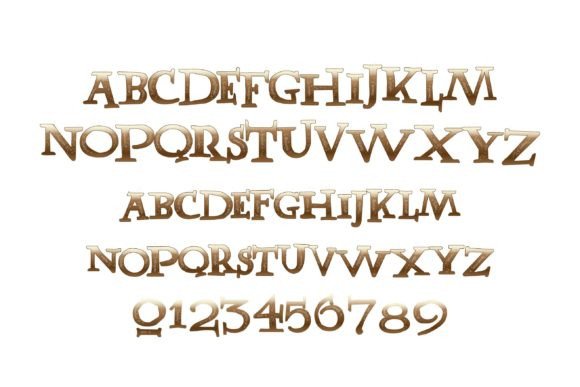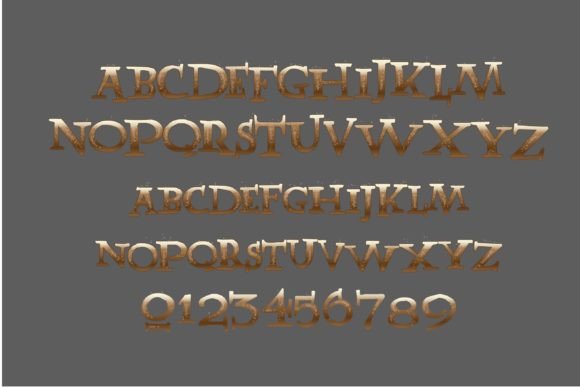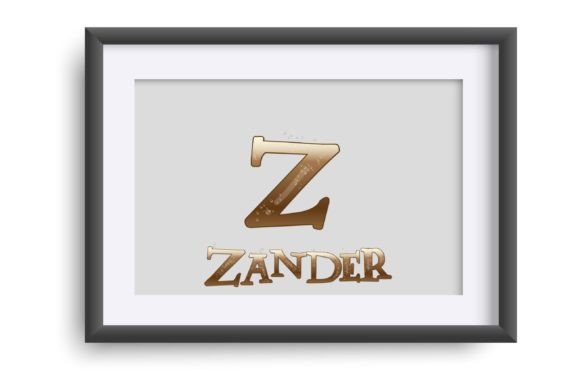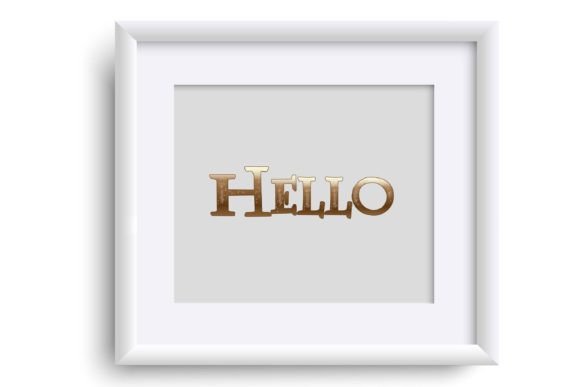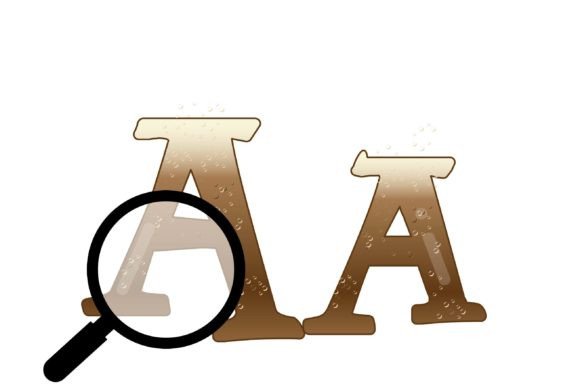
Introduction to Root Beer Font
As a designer, have you ever been in the middle of a creative project, desperately searching for that perfect visual element to bring your idea to life? Perhaps you were working on a retro-themed advertisement or a fun infographic, and nothing seemed to capture the essence of your concept. Well, we’ve got the perfect solution for you – the Root Beer Font!
This delightful, full-color font is a design resource that’s sure to add a touch of whimsy and nostalgia to any project. With its root beer-inspired lettering and carbonation bubbles, it’s the perfect way to create a visually appealing and engaging design. And the best part? You can easily install it on your computer, just like any other font, and use it in your favorite design software.
Whether you’re a seasoned designer or just starting out, the Root Beer Font is a valuable addition to your design arsenal. With its high-quality design and transparent background, it’s the perfect free download to elevate your creative project to the next level.
Key Features of Root Beer Font
- Unique and playful design ideal for creative projects, such as advertisements and branding materials.
- High-quality font with transparent background, allowing for seamless integration into various design elements.
- Designed to evoke a nostalgic feel, perfect for retro-themed designs and projects.
Honest Review: Root Beer Font
I recently came across the Root Beer Font, and I must say it’s a great addition to any designer’s toolkit. The font is a beautiful, modern take on the classic root beer brand aesthetic.
- ✨ The font is incredibly versatile and can be used for a wide range of creative projects, from advertising to packaging design.
- ✨ The high quality of the font is evident in its crisp, clear lines and smooth texture.
- ⚠️ The font may not be suitable for designs that require a transparent background, as it can be quite bold and overpowering.
- ⚠️ Some users may find the font’s nostalgic vibe to be a bit too retro for their taste.
Overall, I’m really impressed with the Root Beer Font. It’s a great design resource that can add a unique touch to any creative project. While it may have a few limitations, its strengths far outweigh its weaknesses.
Root Beer Font is a high-quality design resource that can elevate your creative project. It’s available for free download and features a unique, nostalgic style that’s perfect for retro-themed designs.
Tips for Getting the Most Out of Root Beer Font
To get the most out of Root Beer Font, use it on a transparent background to create a seamless design, or pair it with other fonts to create a unique and eye-catching combination.
Root Beer Font is perfect for retro-themed designs, such as posters, flyers, and business cards. It’s also great for creating a nostalgic feel in your branding and marketing materials.